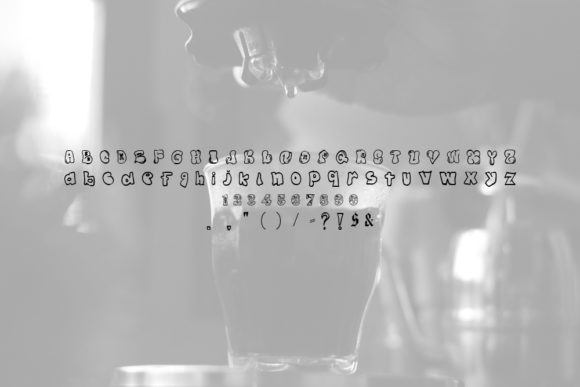
The Andicolbri Font: A Quirky Display Font to Elevate Your Designs
I’ll never forget the time I was working on a project for a client who needed a font that was a little bit quirky, a little bit fun, and a lot of personality. I scoured the internet, tried out dozens of fonts, but nothing seemed quite right. That was until I stumbled upon the Andicolbri font. This font has been a game-changer for me and my design projects, and I’m excited to share it with you today!
An Honest Review of Andicolbri
- ✨ Unique and distinctive character set that adds a touch of whimsy to any design
- ✅ Highly legible, even at smaller sizes
- 💡 Versatile and adaptable – works well on a wide range of design projects, from posters to social media graphics
- 🎨 Great for creative hobbyists and professionals alike
While Andicolbri is an amazing font, there are a few things to keep in mind:
- ⚠️ Some of the characters have a slightly condensed feel, which can make them look a bit cramped at very small sizes
- 🤔 Not ideal for body text or long blocks of reading – best used as a display font
- Experiment with the OpenType features, such as stylistic alternates and glyphs, to add some extra flair to your design
- Browse through the available glyphs and stylistic alternates to add some personality to your design
The Designer Inspiration Behind Andicolbri
While I couldn’t find any information on the specific designer who created Andicolbri, it’s clear that they were inspired by a love of quirky, playful typography. The font’s unique character set and sense of whimsy make it perfect for creative projects that need a little extra personality.
Q: What type of projects is Andicolbri best suited for?
A: Andicolbri is perfect for creative projects that need a little extra personality, such as posters, social media graphics, and branding materials.
Q: Can I use Andicolbri for body text?
A: While Andicolbri is highly legible, it’s best used as a display font. For body text, you might want to choose a font that’s more optimized for reading.